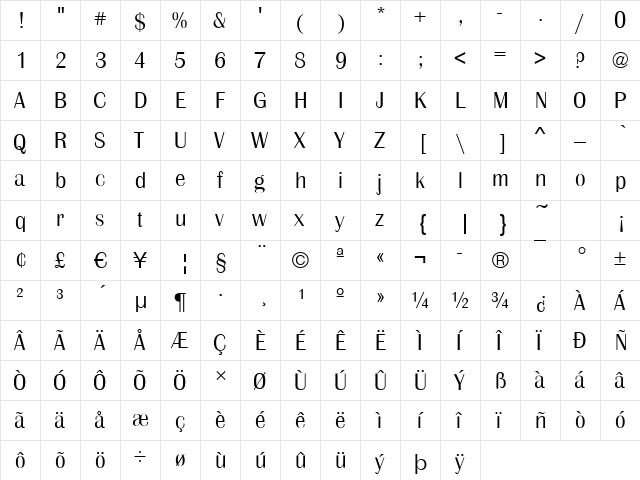
Bristol-Light Regular
Design Context for Bristol-Light Typeface
Bristol-Light takes a measured approach to typography — its balanced proportions and neutral character make it a reliable workhorse for both digital and print work. Its slender proportions lend an understated elegance to any composition.
Pro Tip: Use Bristol-Light in both headline and body roles to test its range before committing to a single application.